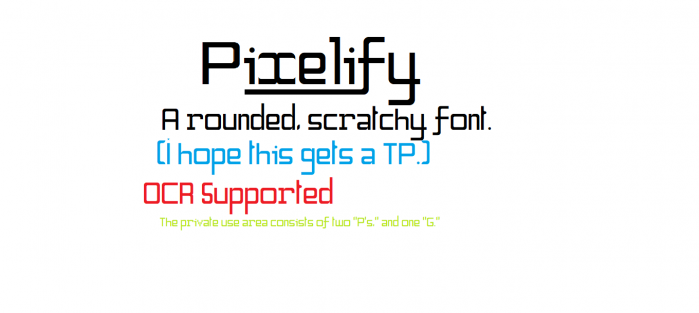
• Introducing Pixelify: A pixel sans that has pixel diagonals and rounded glyphs.
Basically, the figures are just… old-style; releasing lining style soon.
OCR. Optical Customer Recognition (perhaps?). OCR is supported in this draft.
(only the first two glyphs from IPA Extensions were used.)
This is Pixelify. It has OCR too, just to say. I bet the 7:12 font will beat this font too!